HALAS! is a fresh out of the knife sharpener, high contrast contemporary arabic display font, perfect for logos, branding projects, headlines and posters.
Akeed is a conventional arabic display font in a contemporary context, floats like a panda, stings like a dinosaur.
A new display typeface inspired by Joseph Churchward’s vintage type specimen “Ultra Bold”. Ripper utilizes geometric forms and sharp cut-off’s that will help your design stand out from the rest.
Lager is a plump, sympathetic and tasty script family inspired by good old American commercial lettering of mid-1900s – yet there’s more to it than meets the eye. Implemented with an exceptional feature called Intelligent Swash Lager delivers perfected results with an handmade feel. Depending on the choice of letters Intelligent Swash grows and stretches swashes automatically. Accompanied by various ligatures and stylistic alternates, Lager creates beautifully completed words with minimal effort. Just make sure you activate Titling Alternates from your OpenType-menu. The Lager package will be delivered with 5 complete weights, 2 sets of well-groomed numerals and Small Caps as a great companion for the script style. Get high on Lager, it won't leave you short.
A warm and romantic typeface inspired by Paris and its love with African culture and art. The mix of Parisian avantgardism and African culture shaped a unique and vibrant expression. Afrika’s details can be seen as a display font, intended for larger size, it’s also easy on the eyes in short blocks of text copy. Designed with OpenType features, each weight includes alternate characters, ligatures, arrows and extended language.
Beale is a funky retro serif display font inspired by Memphis.
Thanks to the Quay Brothers, London, who provided me with original materials, I was able to revive Carl Otto Czeschka’s beautiful Czeschka Antiqua which was first released by Genzsch & Heyse in 1917. Since nowadays the word Antiqua rather refers to fonts with serifs, I dropped it, also because this fanciful font is a humanist sans. To get access to all ligatures, it is recommended to also activate the OT feature Discretionary Ligatures.
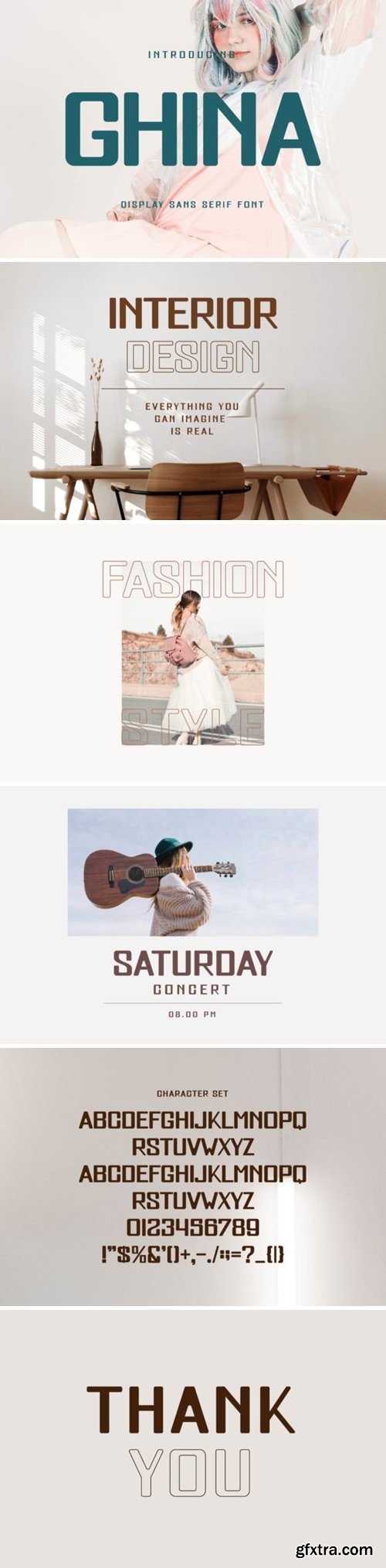
Ghina Font
Ghina Sans is a typeface font inspired by the famous minimalist logo perfect for the purposes of designing templates, brochures, videos, advertising branding, logos, invitation, layout design, elegant crafting, beauty design and other.
Lunaria Retro Font
Lunaria Retro is quirky display font. Created from inspiration by 70’s and 80’s style. This font is perfect for retro and vintage design, typography, logo type, branding, packaging, product design, t-shirt, social media posts and advertisements.
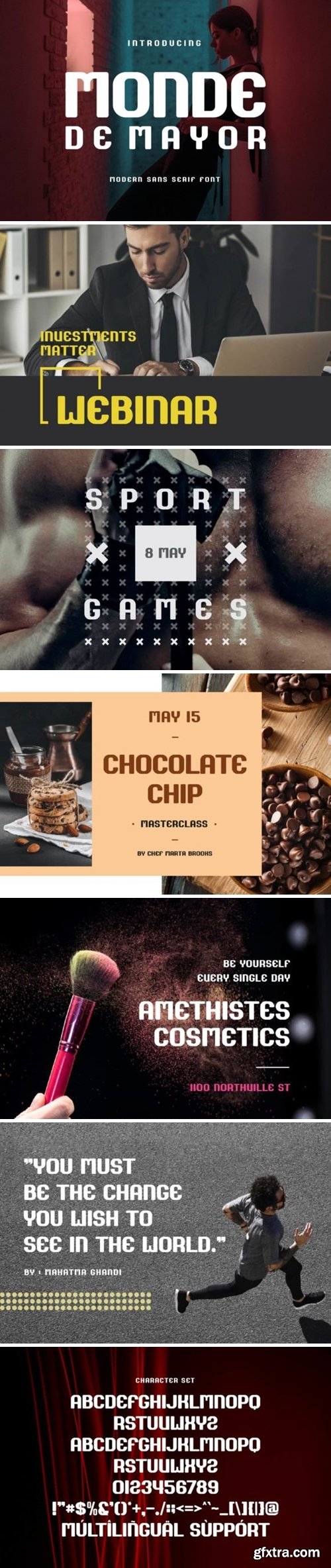
Monde De Mayor Font
Monde De Mayor is a sans type font. It is inspired by the famous minimalist logo perfect for the purposes of designing templates, brochures, videos, advertising branding, logos, invitation, layout design, elegant crafting, beauty design and so much more.
Kenza Font
Kenza is a serif type font. It is inspired by the famous minimalist logo perfect for the purposes of designing templates, brochures, videos, advertising branding, logos, invitation, layout design, elegant crafting, beauty design and so much more.
Tropical Party Font
Tropical Party Font is a playful and fun display font with kids, comic and cartoon theme . This font will bring freshness in summer mood making it suitable for many industries, such as advertisement, café, craft, drink, fashion, food, homeware, publishing, and many more!
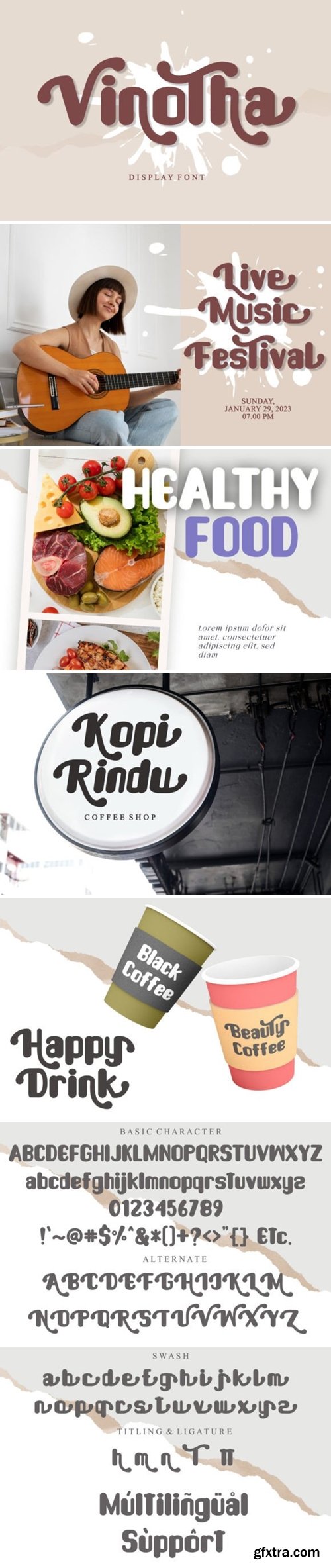
Vinotha Font
Vinotha is a sophisticated, charming display font. Specially designed for luxury, elegant, projects, this font is perfectly suitable for creating modern, chic designs. This font is PUA encoded which means you can access all the glyphs and ligatures with ease!
Lezlie Font
Lezlie is a brush font that comes with standard uppercase and lowercase characters, numbers, punctuation, ligature and multilingual support. This typeface captures the essence of masculinity with its strong lines and bold strokes. Its versatility and flexibility make it suitable for various design styles, and its textured feel adds depth and character to any project.
Long Terms is a bold display font, perfect for product packaging, branding project, megazine, social media, wedding, or just used to express words above the background.
Typeface aiming for beauty without ostensible effects, merely relying on clarity and well balanced proportions. The sensation of the ordinary, just what is it that catches the eye, and why? What’s the significance of a broken flowerpot, a pair of identical tables side by side. These kinds of ordinary objects may seem reasonably trouble-free. Nevertheless, on closer scrutiny, these objects are at least as mystifying, if not more so. Ordinary Sans examines subtle in seemingly normal fonts. Ordinary is a modern sans serif with a geometric touch. A younger brother of the Everyday family. It comes in 12 weights, and matching italics. The text weights are free of charge, so you can use them to your heart’s content. It has a functional look with a warm touch. While the Display weights are great for large sizes the text weights are well suited for smaller texts.
Chiga Font
Looking for a font that stands out? Chiga is the answer! This modern serif font features unique curves on every letter and clean, straight strokes that give it a distinctive, eye-catching character. Chiga is ideal for branding, posters, and other professional projects. This font is not only elegant and unique but also easy to read, Chiga is sure to make an impact.